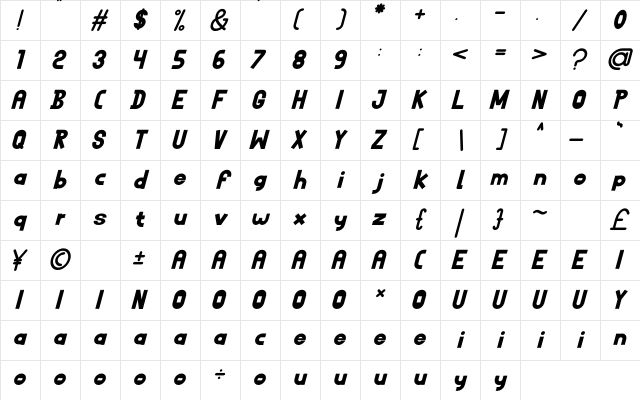
HELLO DUCKIES Italic
Foundry: Pian45
Designer: Pian45
Design Context for HELLO DUCKIES
HELLO DUCKIES is a composed and adaptable typeface that performs quietly and consistently across a wide range of design contexts. The slanted form adds forward momentum and visual energy.
Pro Tip: Use HELLO DUCKIES for emphasis, pull quotes, and subheadings where its slanted energy can add rhythm to the layout.